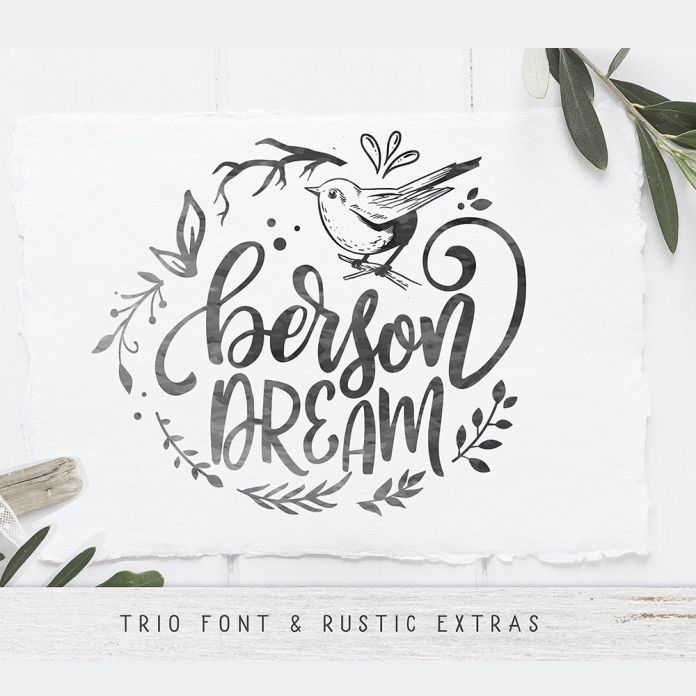
Berson Dream is a beautifully rustic font family that brings together whimsy, warmth, and creativity in one thoughtfully designed bundle.
It features three complementary fonts—a flowing script, a clean sans, and a perfectly blended trio—plus a bonus extras font packed with 67 hand-drawn illustrations including birds, florals, branches, leaves, and decorative flourishes.
Every lowercase letter in the script font comes with 11 to 19 alternate glyphs, giving you complete creative control to craft personalized and expressive lettering. Whether you're making logos, quotes, t-shirts, wedding designs, mugs, or farmhouse-style decor, Berson Dream is your go-to for charming, handcrafted aesthetics.
Berson Dream Script (OTF & TTF) – A flowing script font with over 340 glyphs and ligatures
Berson Dream Sans (OTF & TTF) – A rustic sans that pairs perfectly with the script
Berson Dream Trio (OTF & TTF) – A blend of the two styles for balanced designs
Berson Dream Extras (OTF & TTF) – 67 hand-drawn cliparts in font format